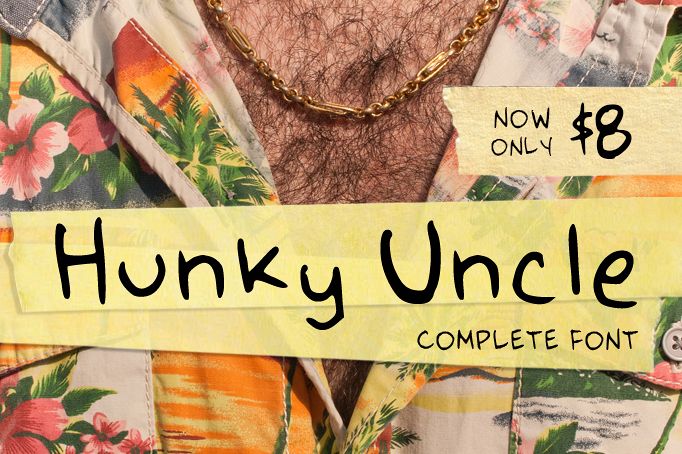
Hunky Uncle Handwritten Script Font
Throw in some fun with this handwritten font!
Complete upper and lower case alphabet with numeric characters plus all glyphs!